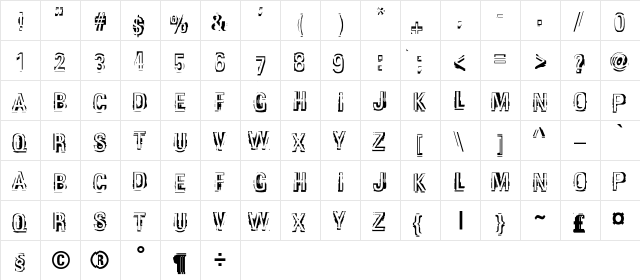
GarbedgeC Regular
| Foundry | ParaType, Inc |
Design Context for GarbedgeC Typeface
GarbedgeC is a composed and adaptable typeface that performs quietly and consistently across a wide range of design contexts.